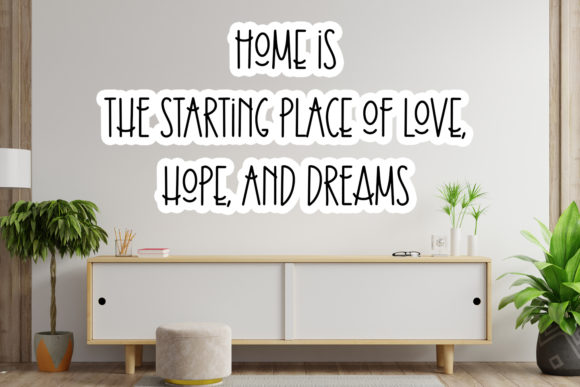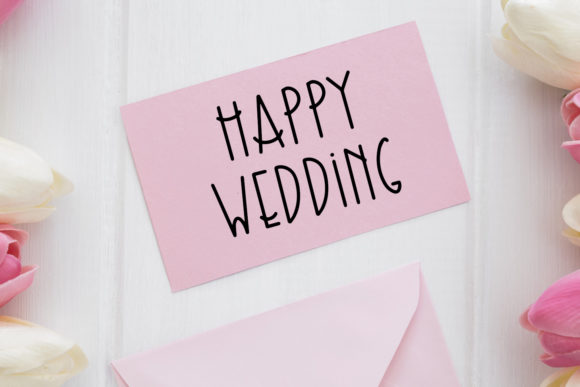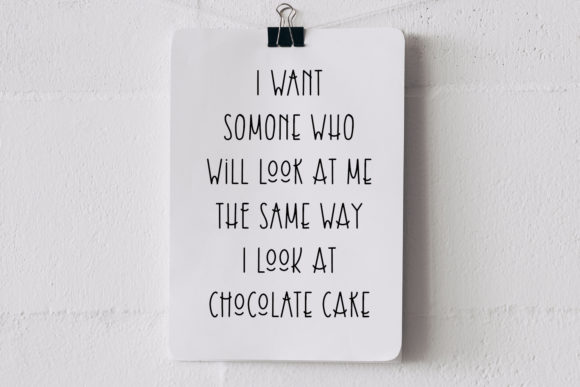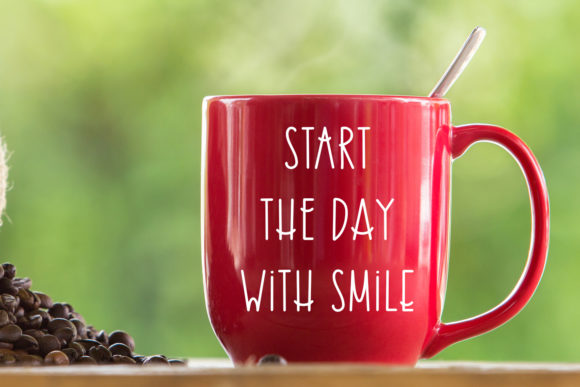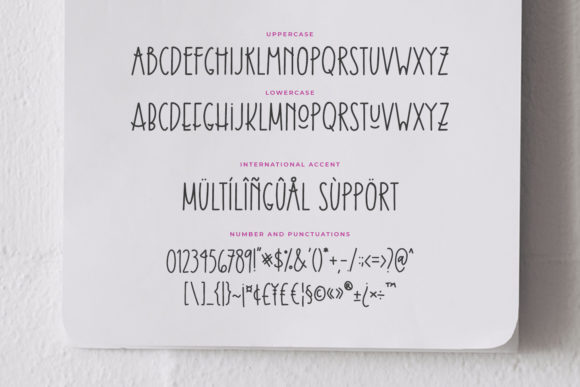
You’ve finally nailed down the concept, and the ideas are flowing like water. But then, it hits you – the font. Will it be modern and sleek, or quirky and playful? The right font can make or break your design, and for many creatives, finding that perfect font is a constant struggle. But what if I told you there’s a font that’s sure to put a smile on your face – and your clients’ faces too?
Meet the Home of Smile Font, a unique display font that’s perfect for adding a touch of whimsy to your designs. Whether you’re working on a branding project, a social media campaign, or even a wedding invitation, this font is sure to bring a smile to your face. And with its versatility, you can use it in a wide variety of contexts – from digital to print.
As a designer, you know how valuable it is to have a reliable font in your arsenal. The Home of Smile Font is a great addition to any design library, and its quirky charm is sure to make your designs stand out from the crowd.
Key Features of Home of Smile Font
- Unique Characteristics: Home of Smile Font features a unique, smile-like design that adds a touch of friendliness and approachability to any text. The font’s curves and lines are carefully crafted to evoke a sense of warmth and welcome.
- Font Style: Home of Smile Font is available in a single font style, but it can be easily customized using font editing software to create different variations and effects.
Home of Smile Font Review
When I first laid eyes on the Home of Smile Font, I was immediately struck by its playful and approachable vibe. ✨ The font’s rounded edges and friendly curves make it perfect for branding and marketing materials that require a touch of warmth and whimsy. The font is also highly versatile, working well in a variety of contexts, from children’s books to advertising campaigns.
One of the standout features of the Home of Smile Font is its excellent legibility. ✨ The font is easy to read, even at small sizes, making it a great choice for digital applications. Additionally, the font includes a range of weights and styles, allowing designers to tailor their design to suit their specific needs.
- ⚠️ The font may not be the best choice for formal or professional applications, where a more serious or formal tone is required.
- ⚠️ Some users may find the font’s playful nature to be too childish or cutesy, which could detract from the overall impact of the design.
- ⚠️ The font’s extensive feature set can make it overwhelming to navigate, especially for designers who are new to the font.
Overall, the Home of Smile Font is a solid choice for designers looking for a friendly and approachable font that can add a touch of warmth to their designs. While it may not be the best fit for every project, it’s definitely worth considering for those looking to create a playful and engaging visual identity.
To get the most out of Home of Smile Font, try the following:
- Use it in combination with other fonts for a unique look.
- Use it for headings or titles to draw attention.
Home of Smile Font is commonly used in:
- Branding and logos.
- Advertising and marketing materials.